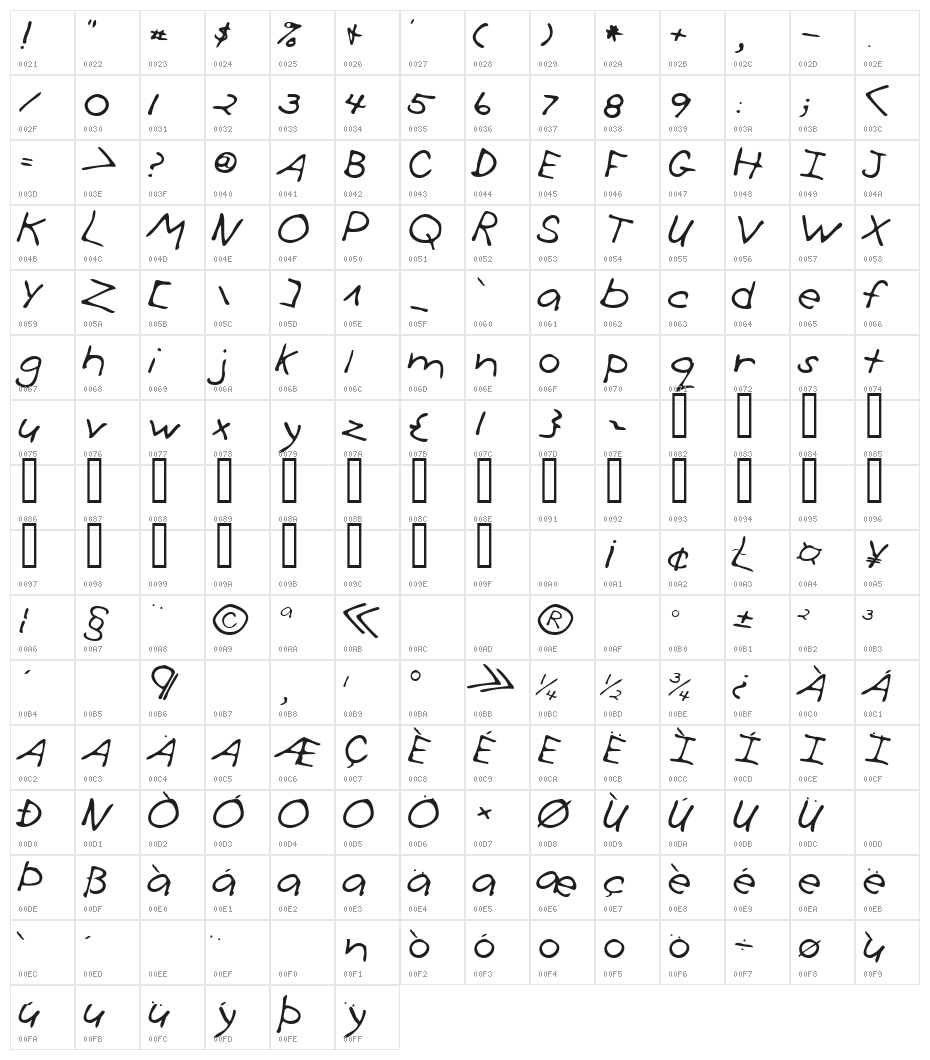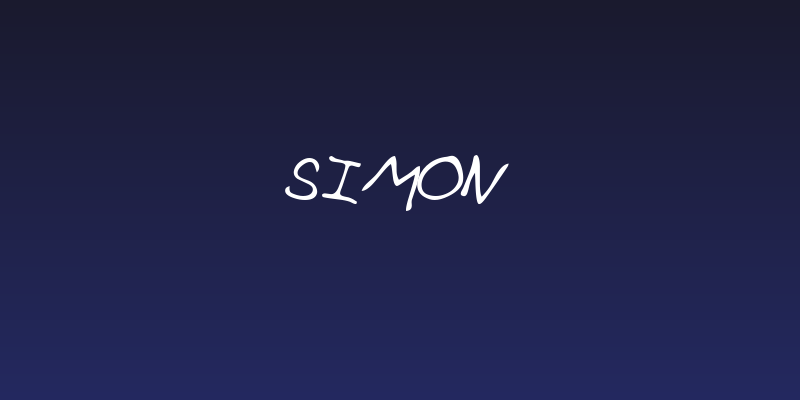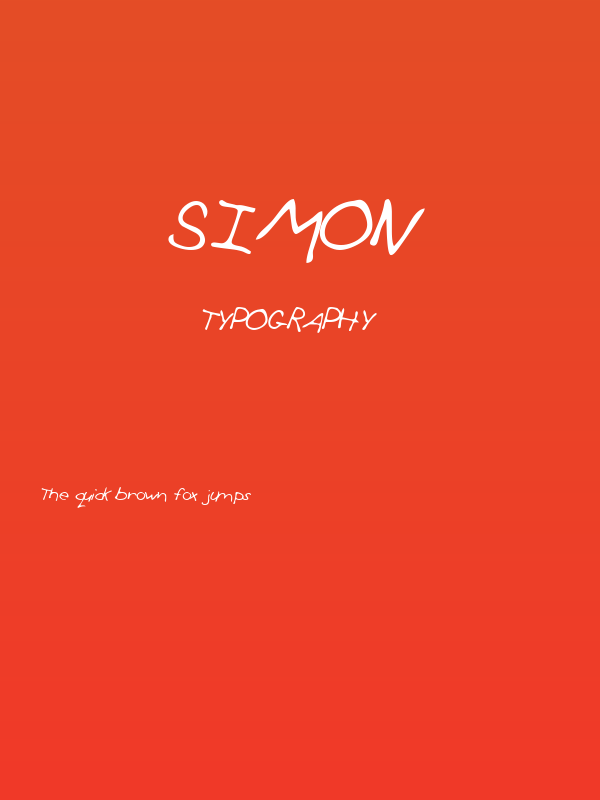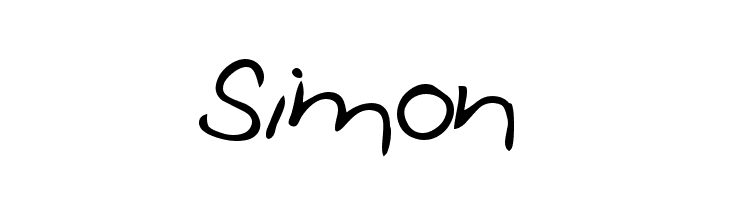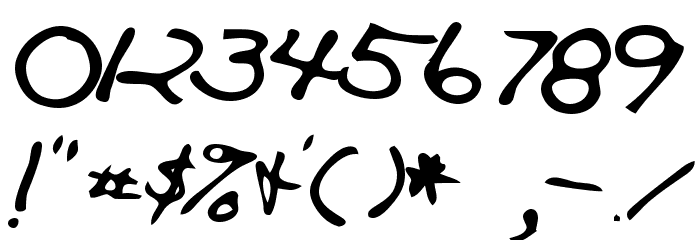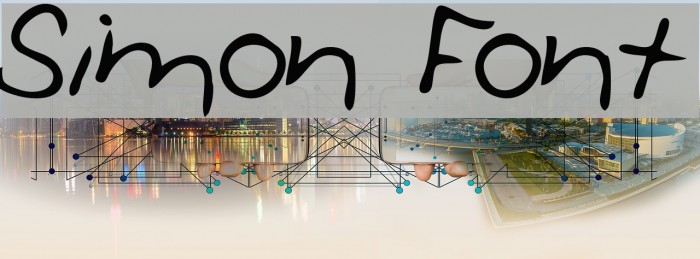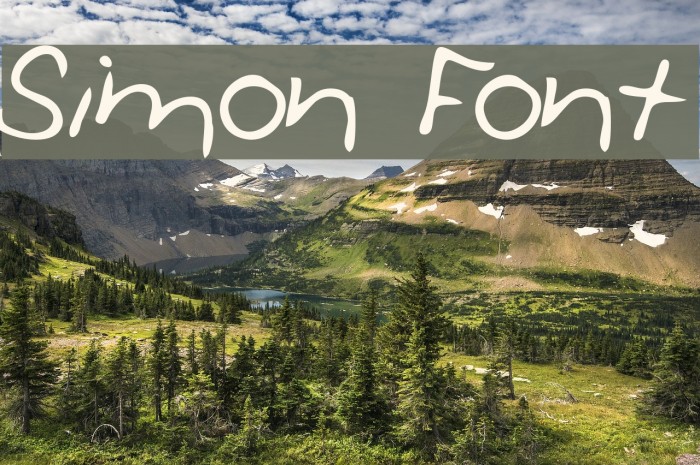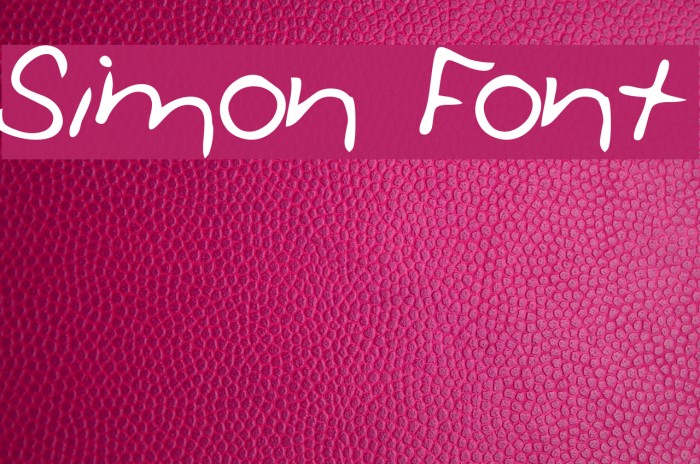
Simon Font
Simon Description
This font exhibits a lively and dynamic handwritten style, characterized by its fluid and slightly irregular strokes. The uppercase letters are bold and confident, with a playful tilt that adds a sense of movement. Lowercase letters maintain a consistent flow, enhancing the casual and approachable feel. Numbers are clear and legible, while special characters are integrated seamlessly, maintaining the overall energetic vibe. The font's unique personality makes it stand out, offering a sense of creativity and spontaneity.
| Use Case | Logos, Headlines, Artistic projects |
| Proposed Projects | Ideal for creative projects such as greeting cards, invitations, personal branding, and artistic posters. |